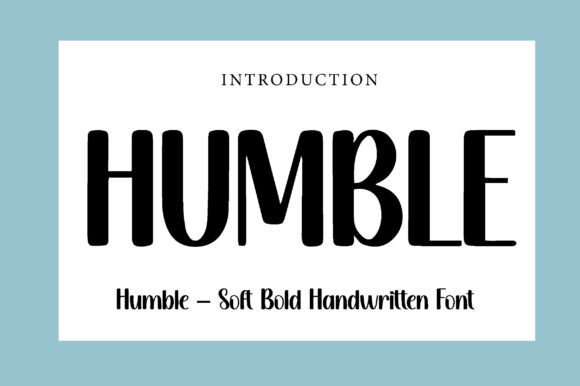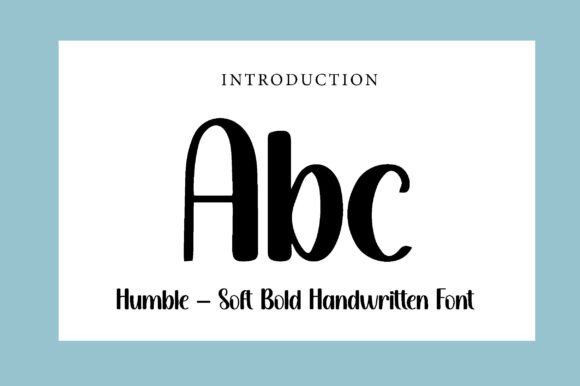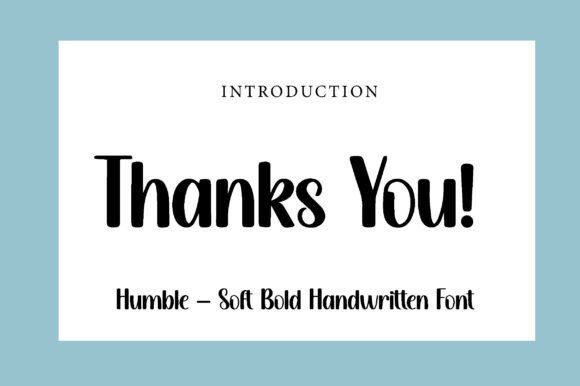
When Creativity Meets Warmth: Discover the Humble Font
Have you ever sat in front of your computer, staring blankly at a blank canvas, trying to conjure up the perfect design? The moment when ideas start flowing, and your creativity takes over, is pure magic. It’s in these moments that the right tools can make all the difference.
Enter the Humble Font, a delightful handwritten font that embodies the spirit of friendliness and warmth. Crafted to bring a personal touch to your designs, Humble Font is perfect for branding, packaging, and social media projects that demand a youthful and vibrant tone. With its soft, bold, and rounded characteristics, this font is an ideal choice for designers seeking to create a polished yet lively undertone in their work.
Humble Font Key Features
- Unique Characteristics: Humble Font features a unique blend of modern and vintage elements, with subtle texture and imperfections that add a touch of elegance and sophistication.
- Character Set: The font includes a comprehensive character set, including uppercase and lowercase letters, numerals, punctuation marks, and various symbols, making it ideal for a wide range of applications.
- Font Weight: Humble Font comes in three font weights: Light, Regular, and Bold, allowing users to choose the perfect weight to suit their design needs.
Humble Font Review
I’ve had the chance to work with Humble Font on a few projects, and overall, I’m quite pleased with its performance. Here are some things that really shine ✨:
- Unique character: Humble Font has a distinct, handwritten feel that sets it apart from other fonts. It’s perfect for projects where you want to add a touch of personality.
- High legibility: Despite its script-like appearance, Humble Font is surprisingly easy to read, even at smaller font sizes.
- Good for headings: The font’s bold and playful nature makes it an excellent choice for headings and titles.
Of course, no font is perfect, and Humble Font has some limitations ⚠️:
- Limited language support: While Humble Font supports a wide range of languages, it’s not as comprehensive as some other fonts.
- May not be suitable for long blocks of text: The font’s script-like nature can make it difficult to read large amounts of text.
- Can be difficult to pair with other fonts: Humble Font’s unique style can be challenging to pair with other fonts, so be prepared to experiment.
Overall, I think Humble Font is a great choice for projects where you want to add a touch of personality and whimsy. While it may have some limitations, its unique character and high legibility make it a solid choice for designers looking to add some flair to their work.
Getting the Most Out of Humble Font
For optimal results, use Humble Font in conjunction with a clean and simple design aesthetic. Avoid combining it with too many other fonts or bold typography, as this can create visual clutter. Experiment with different font sizes and colors to create a cohesive and effective design.
Humble Font is ideal for use in creative, artistic, and minimalist designs. It is particularly well-suited for use in headings, titles, and captions, where its clean and simple lines can help to create a sense of focus and clarity.